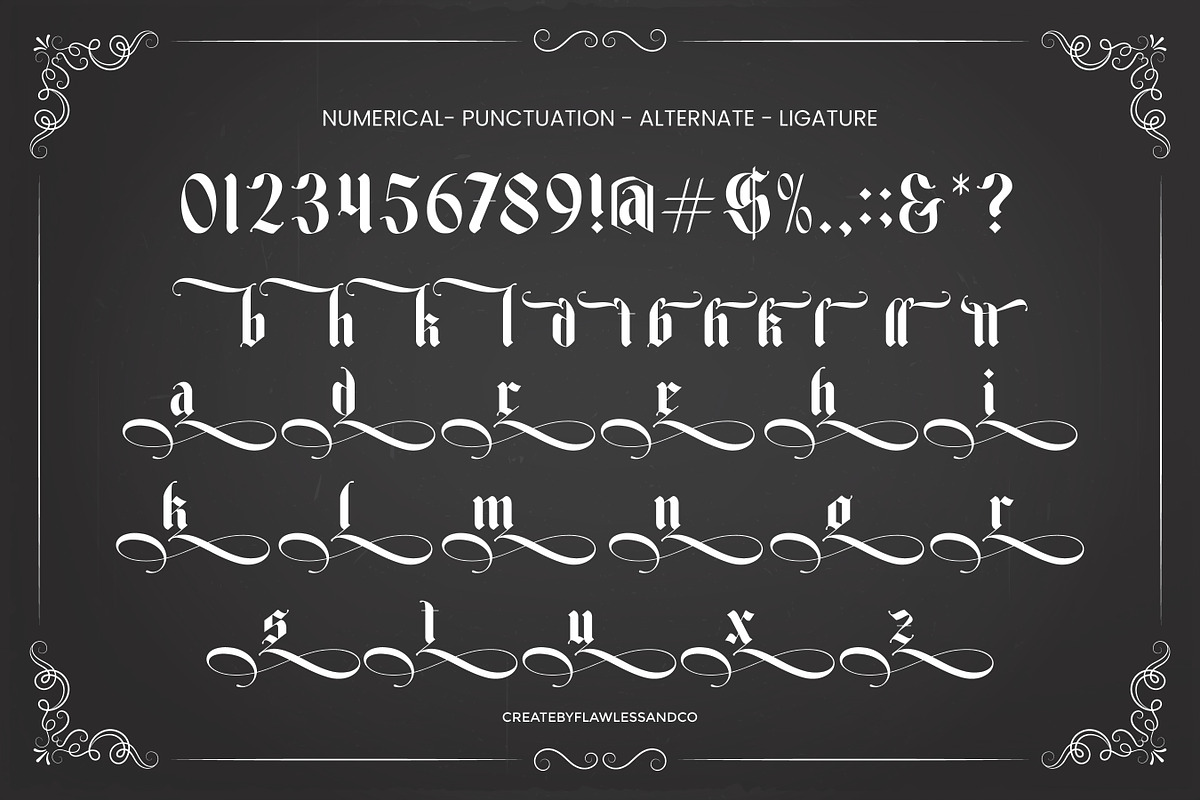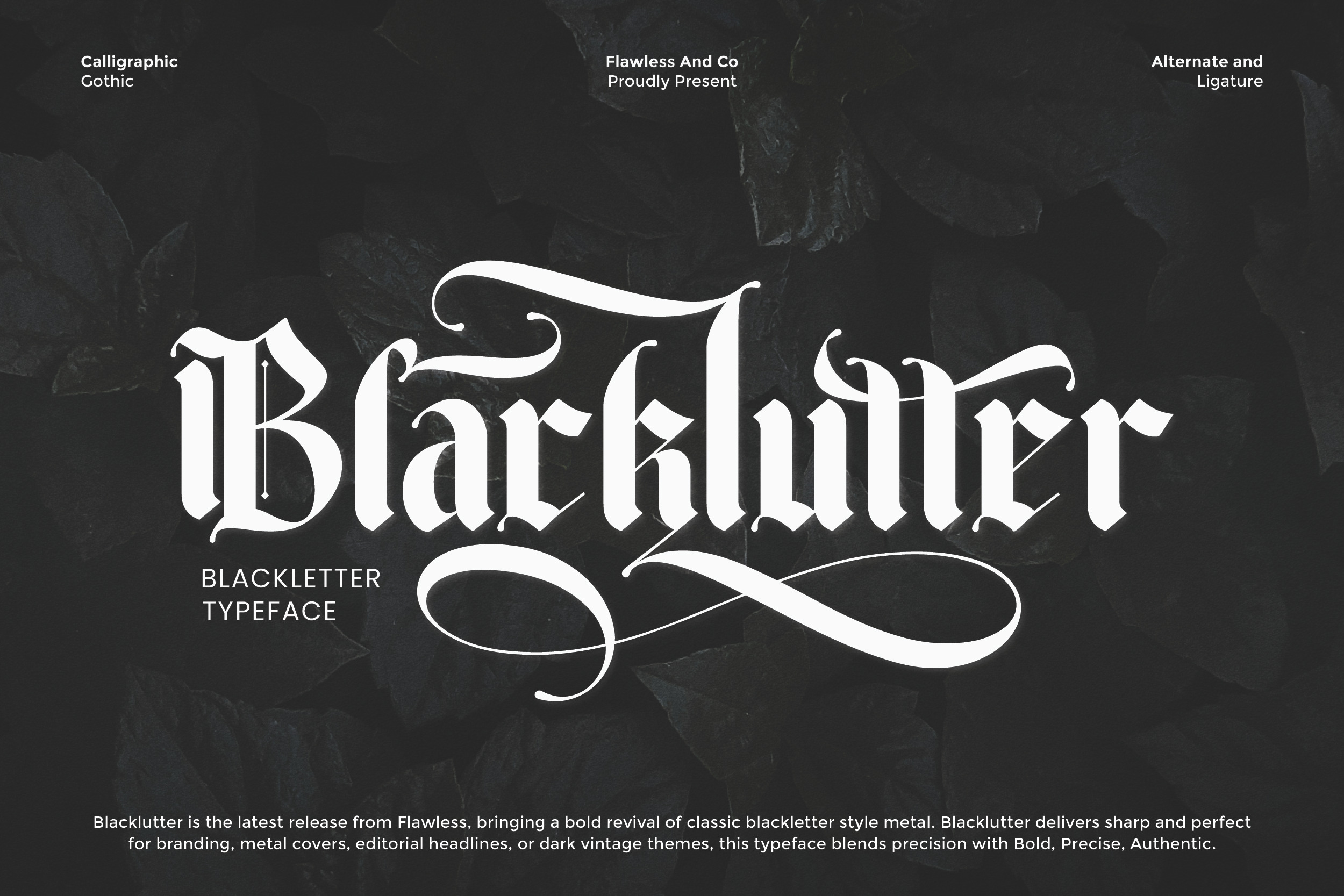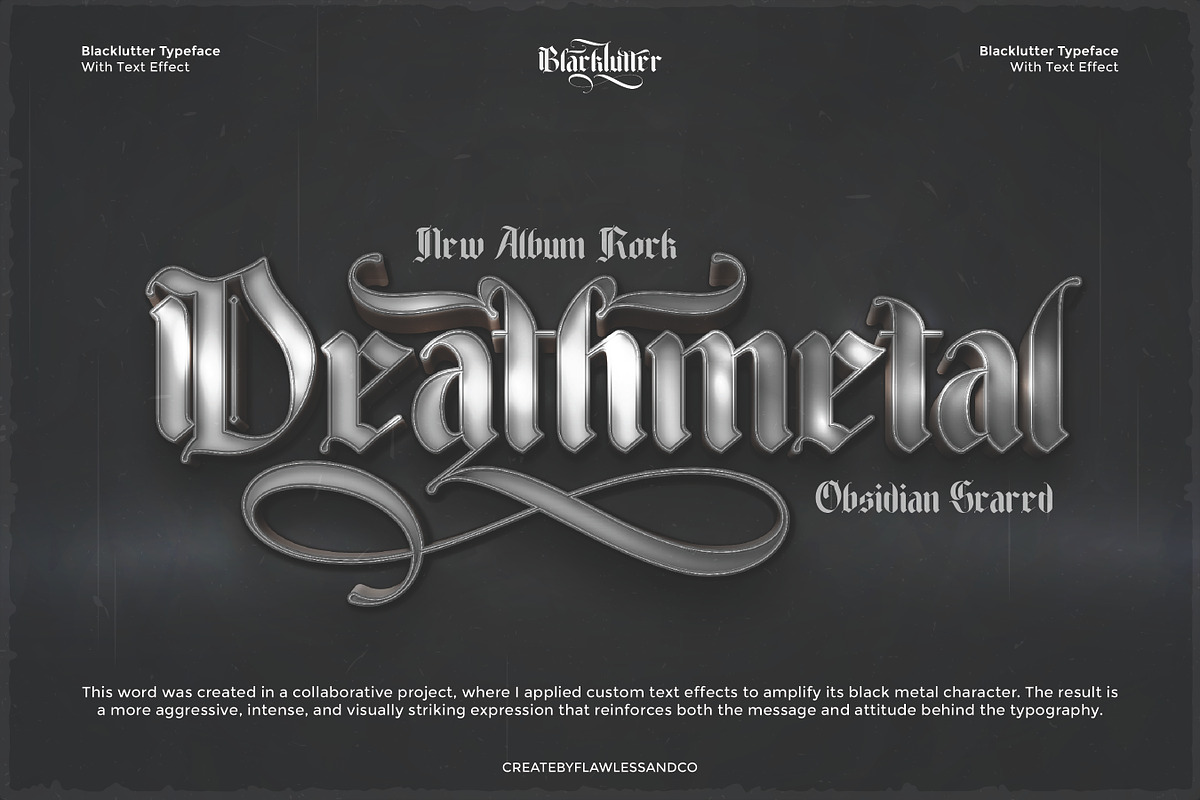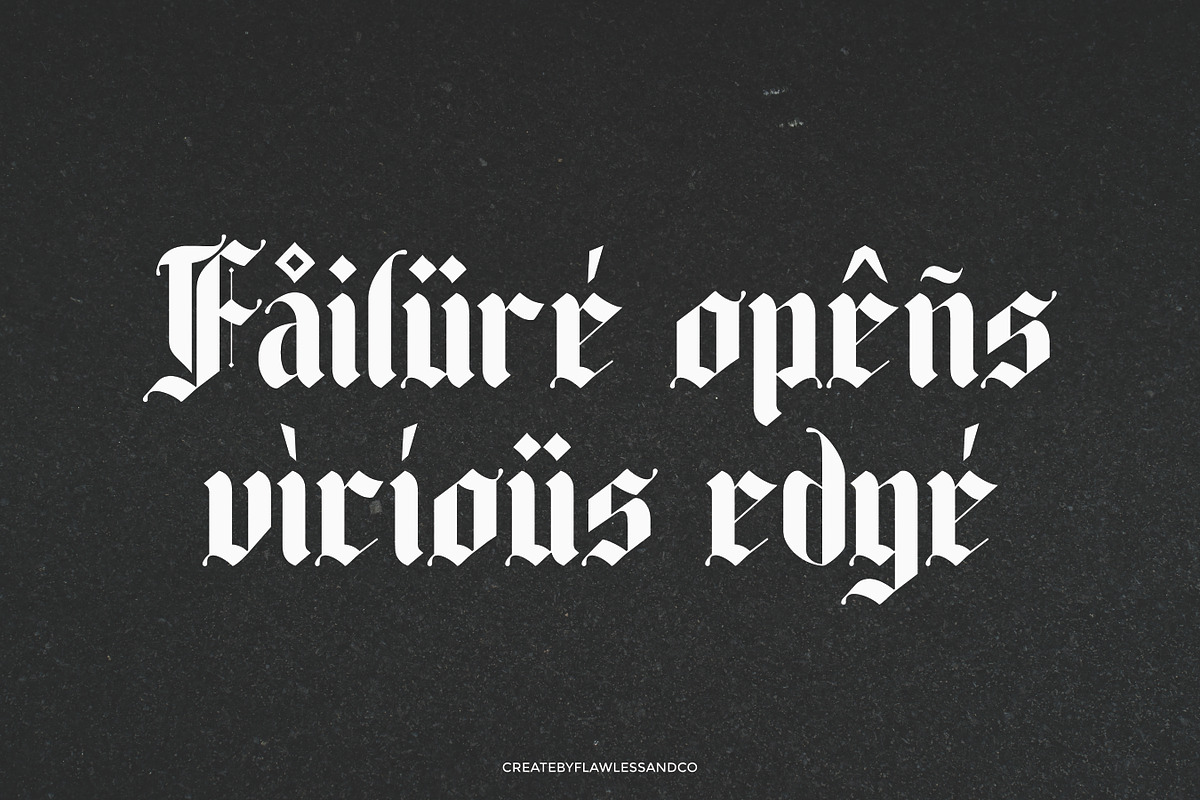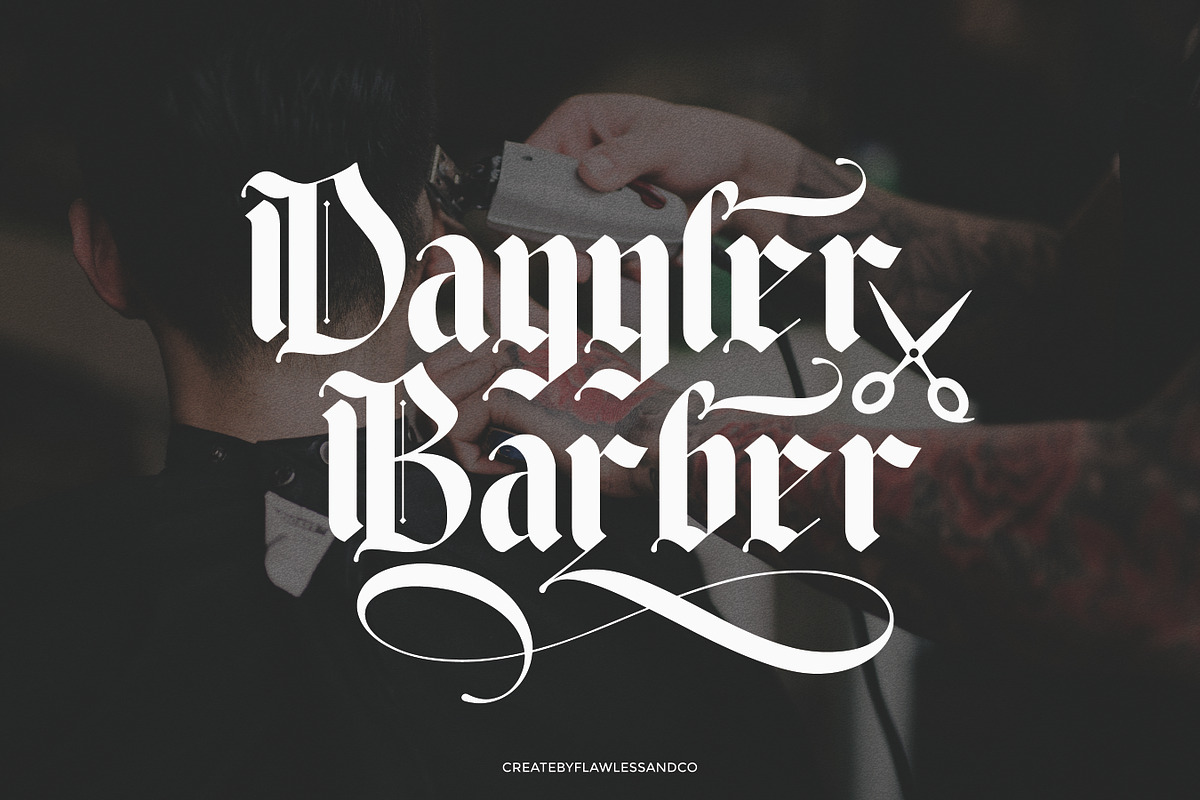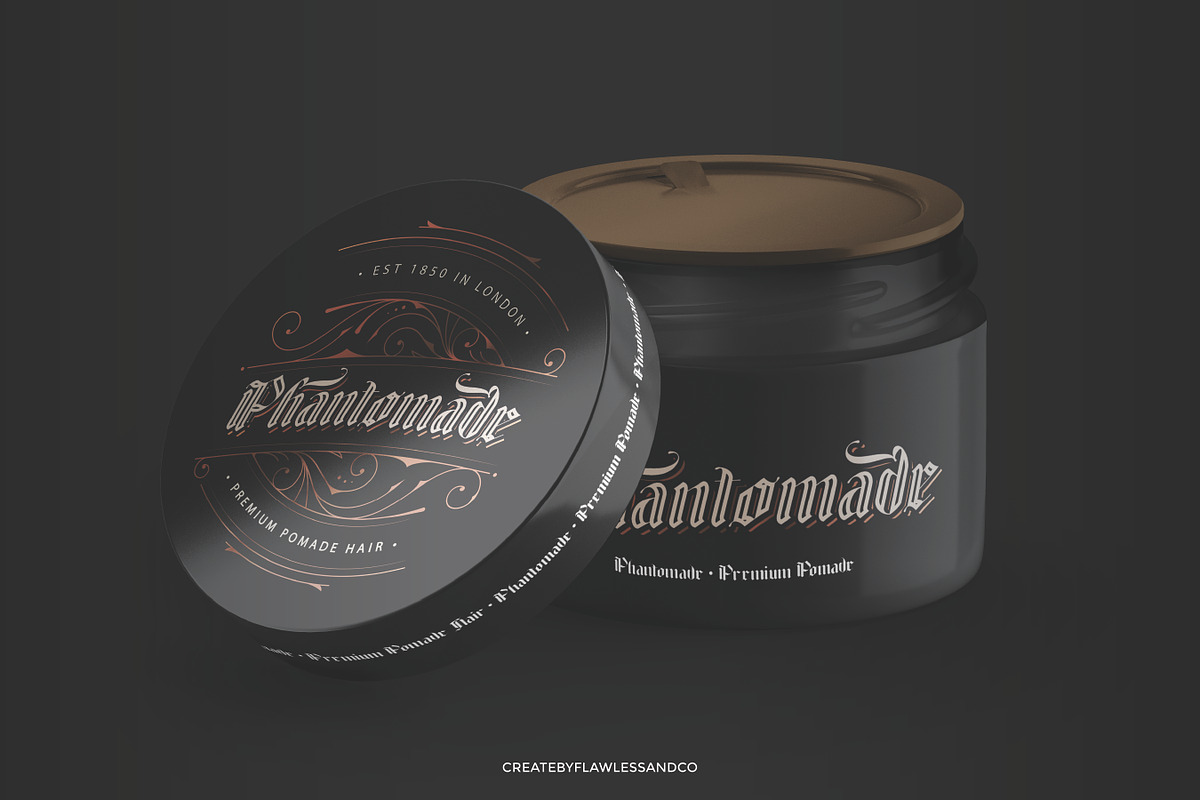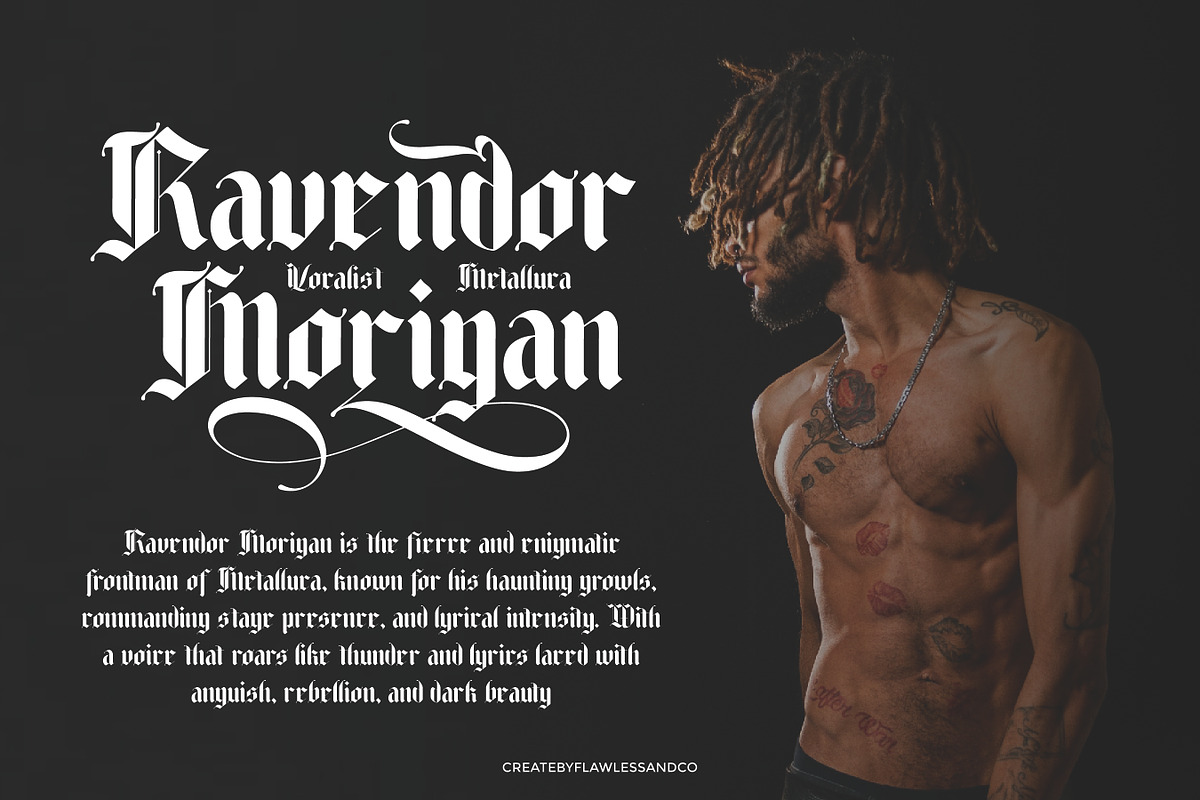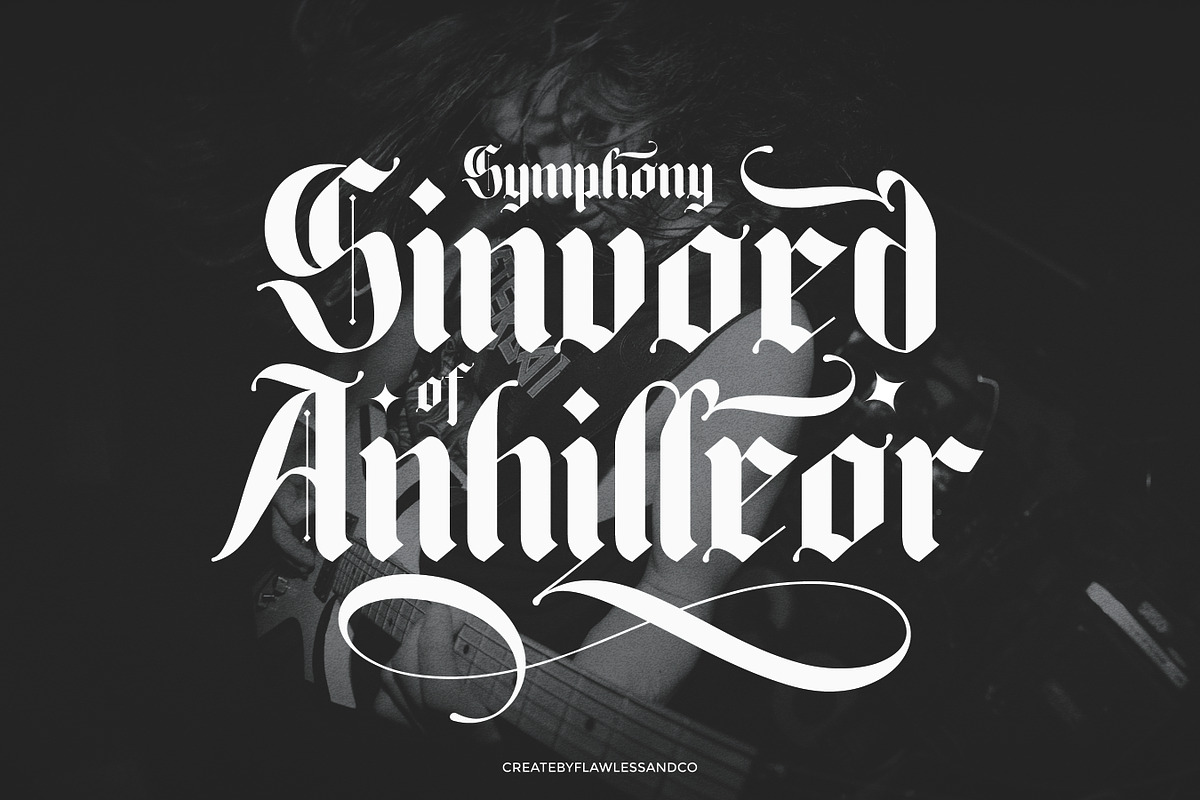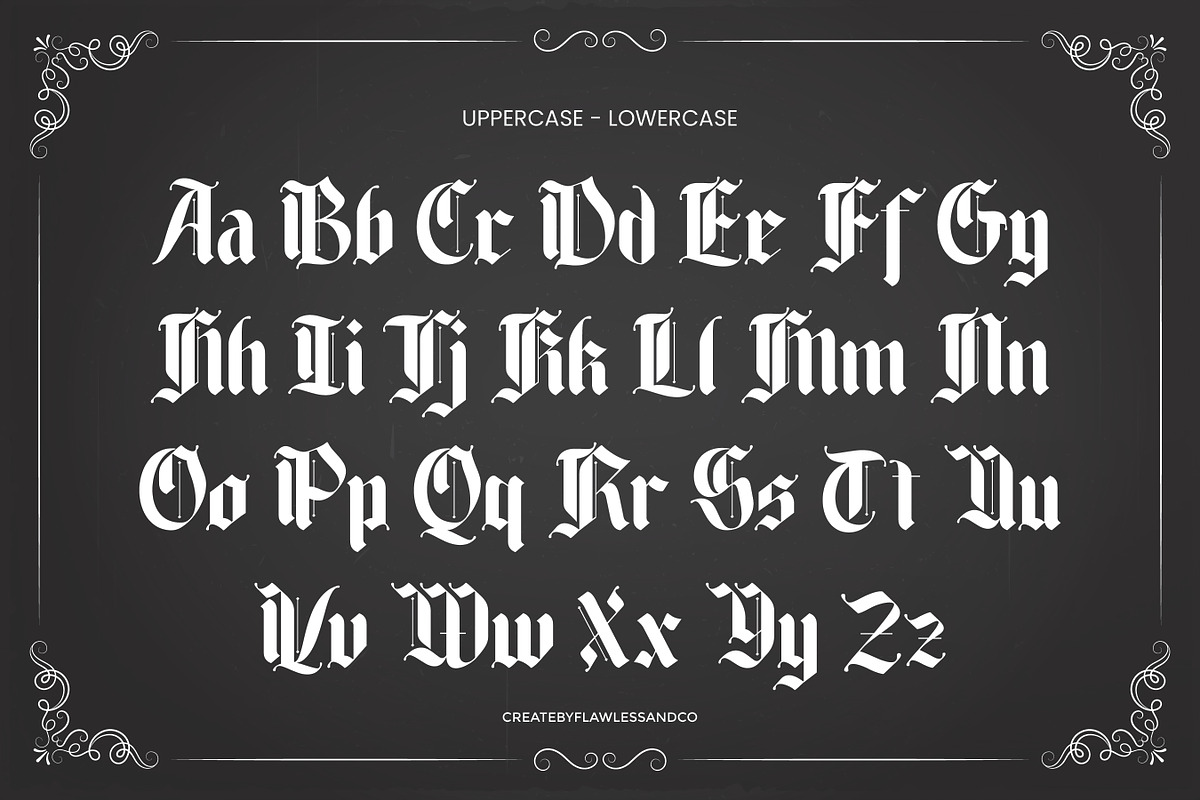
Blacklutter - Blackletter Typeface F
Blacklutter – Bold Blackletter Typeface
Blacklutter is a bold and powerful blackletter typeface that combines traditional gothic style with a modern touch. Its sharp edges, dramatic strokes, and distinctive letterforms make it perfect for designs that demand strength, authority, and style.
This typeface is ideal for branding, logos, posters, merchandise, album covers, apparel design, tattoo lettering, and more. Whether you’re working on a vintage-inspired project or aiming for an edgy, contemporary look, Blacklutter will make your typography stand out.
Who Should Use Blacklutter?
Blacklutter is made for designers, brands, and creatives who want to bring boldness and character into their work. It’s perfect for:
- Logo designers creating strong, impactful brand marks
- Apparel and streetwear brands needing edgy, gothic-inspired typography
- Tattoo artists and lettering enthusiasts looking for dramatic letterforms
- Music and entertainment projects such as album covers, posters, and event graphics
- Creatives working on vintage, medieval, or fantasy-themed designs
- Merch designers who want to make a bold statement with typography
This font is for anyone who wants their design to stand out with a powerful, timeless blackletter style.
A Must-Have Font for Brand and Logo Creators and Designers
Blacklutter is the ultimate choice for creators and designers who demand a bold, distinctive, and unforgettable typeface. Its classic blackletter style combined with strong, intricate strokes makes it a powerful tool for building brand identities, designing iconic logos, and crafting visuals that leave a lasting impression. Whether for modern branding or vintage-inspired projects, Blacklutter delivers unmatched personality and impact.
Why Choose Blacklutter for Brand and Logo Projects?
Blacklutter stands out with its bold blackletter design, giving every project a sense of strength, tradition, and authority. Its sharp, ornamental strokes command attention, making it perfect for logos, brand marks, and statement headlines. This font bridges the gap between historical elegance and modern edge, ensuring your designs not only capture attention but also remain timeless and memorable. Whether you’re creating luxury branding, merchandise, or promotional materials, Blacklutter adds a unique signature style that elevates your work.